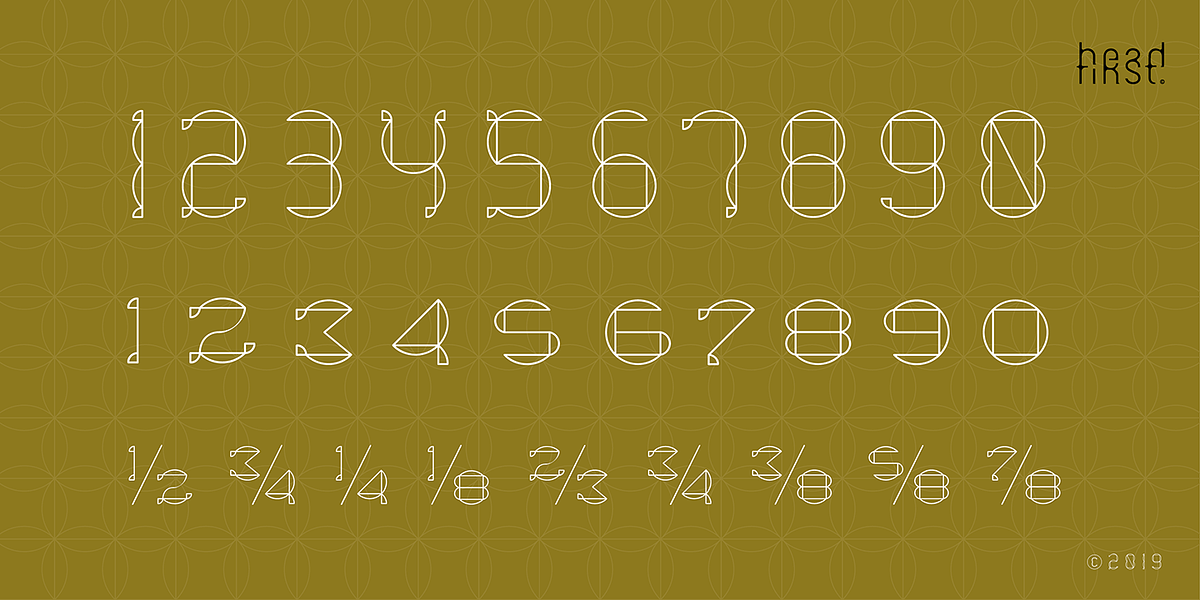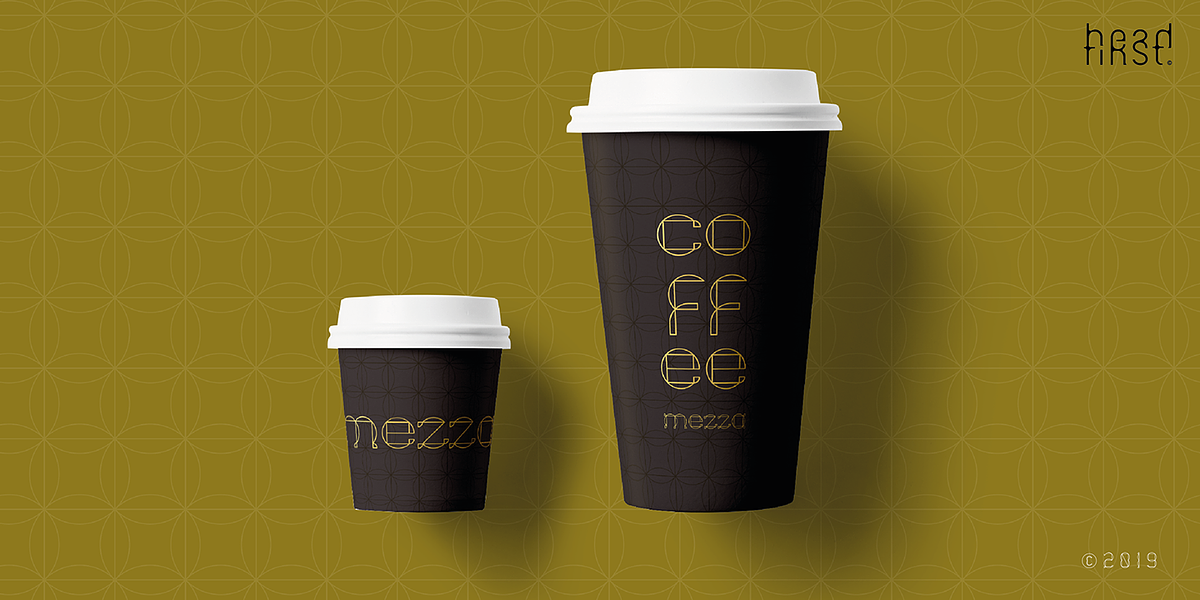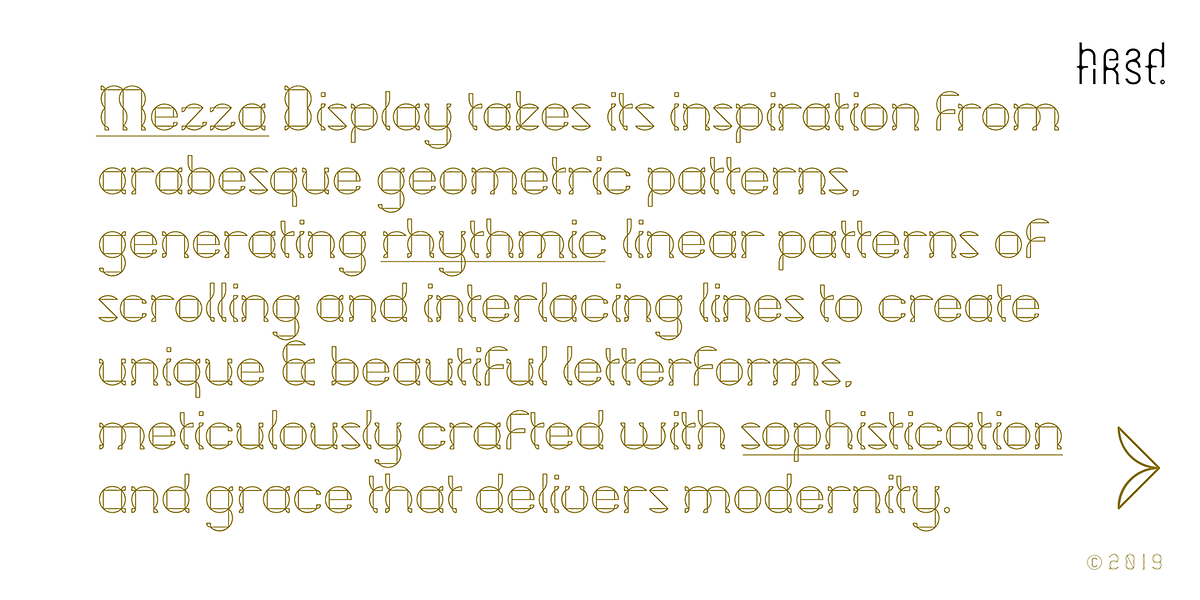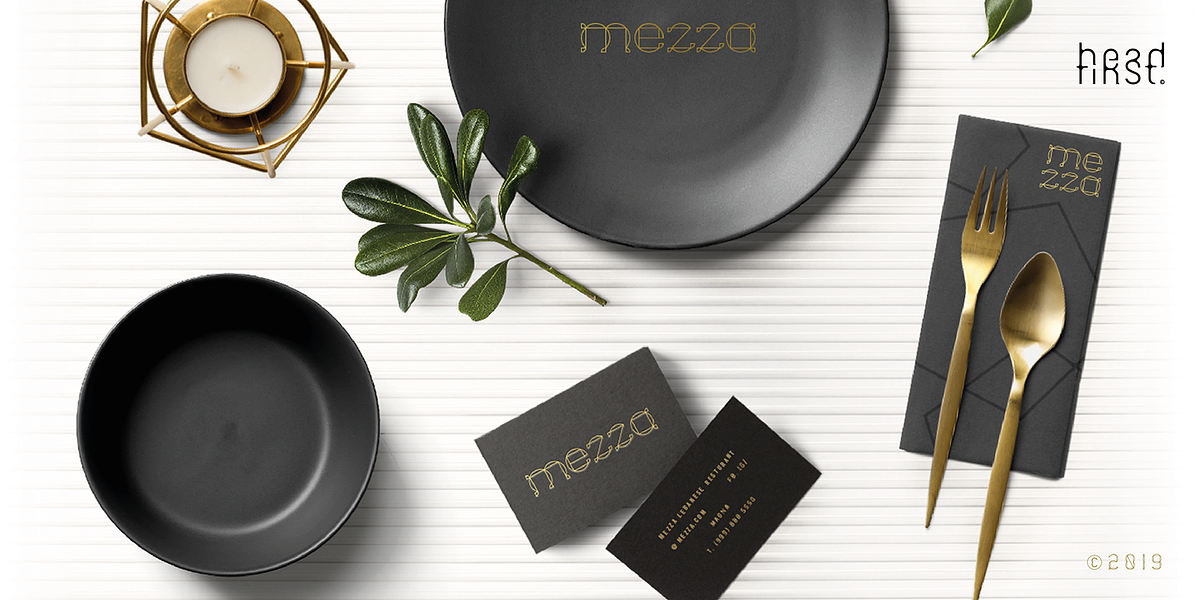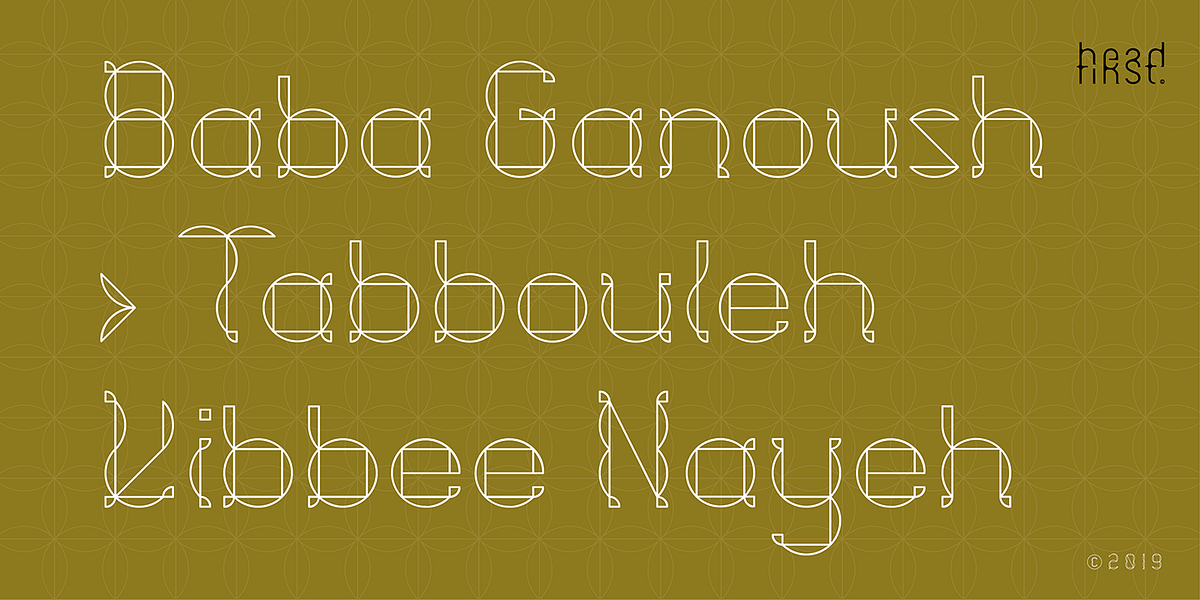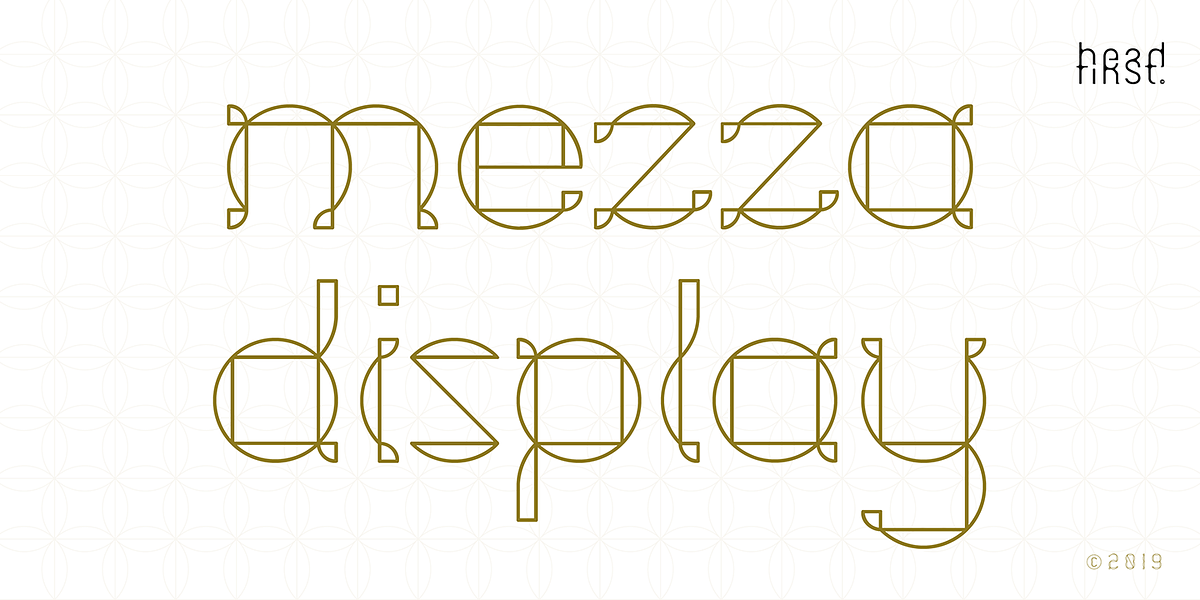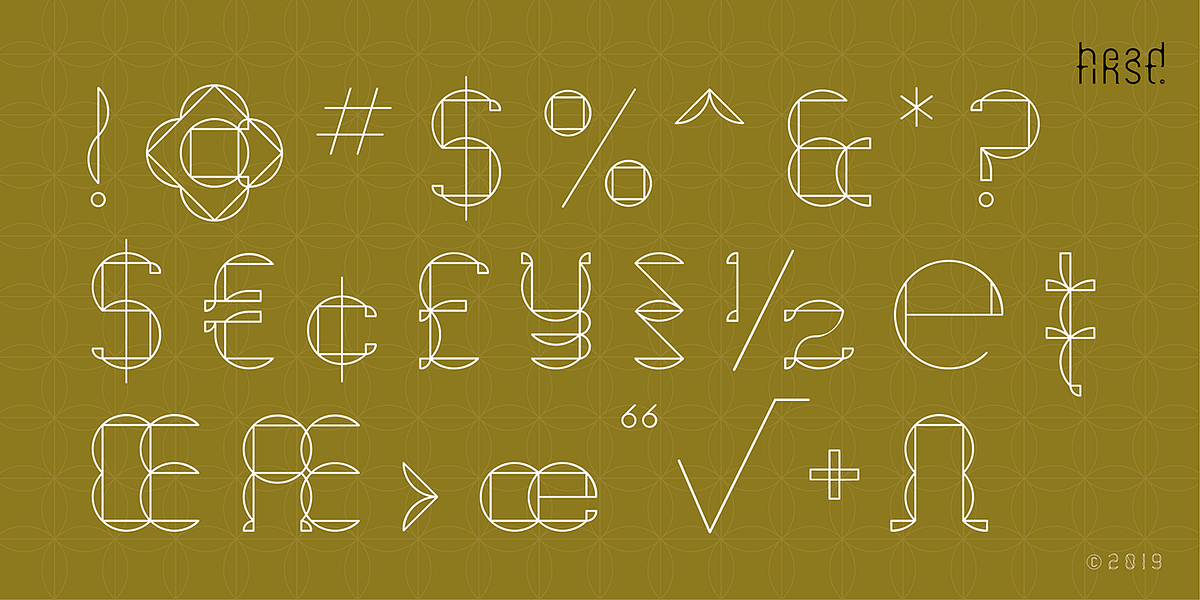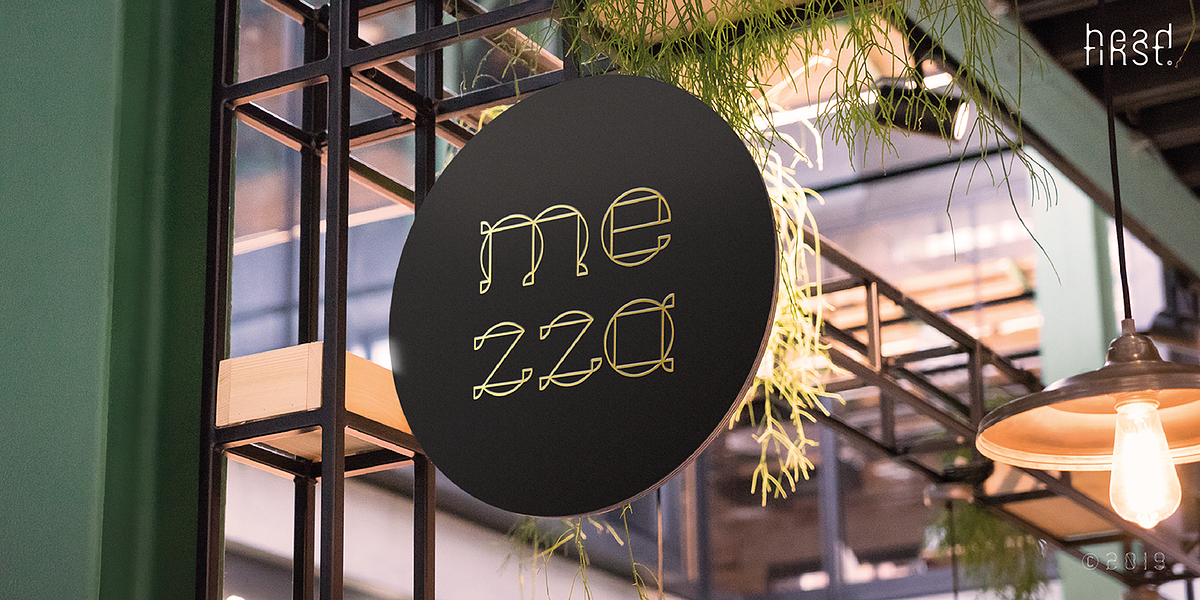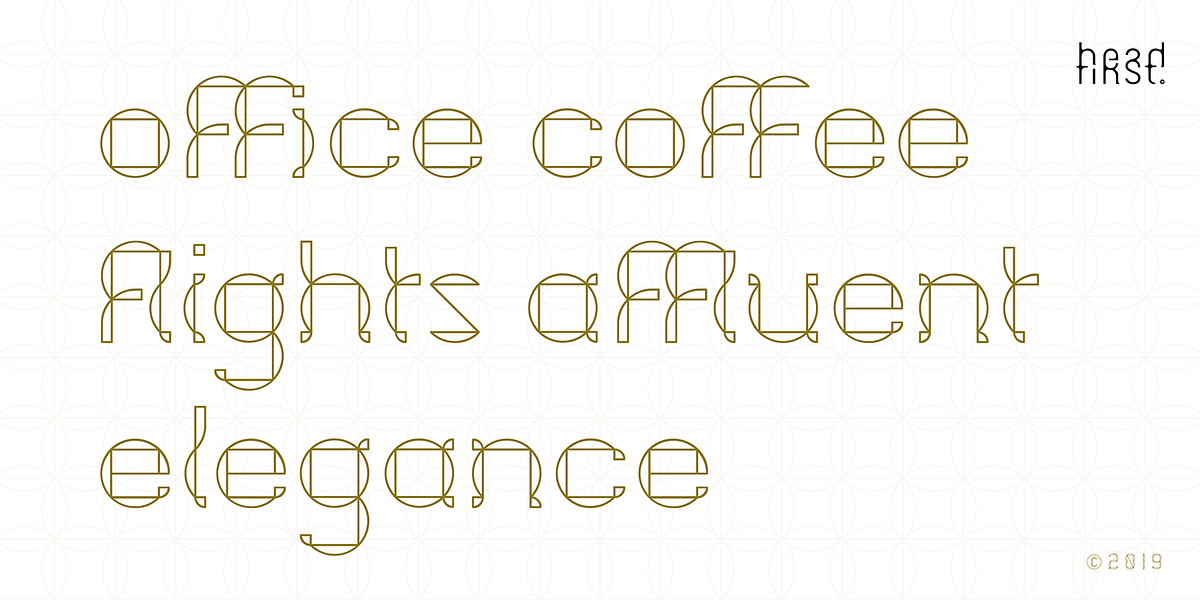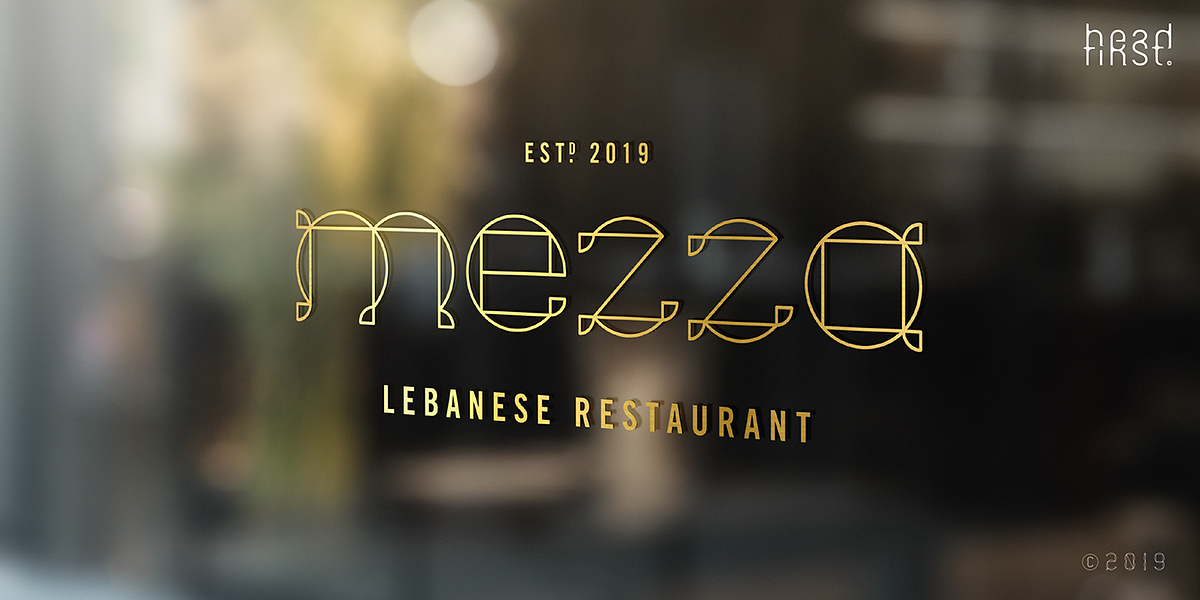
Mezza
Mezza Display is a geometric display sans serif font inspired by the rhythmic linear patterns found in arabesque designs. The font features unique and beautiful letterforms created through scrolling and interlacing lines, resulting in an intricate and visually captivating typeface.